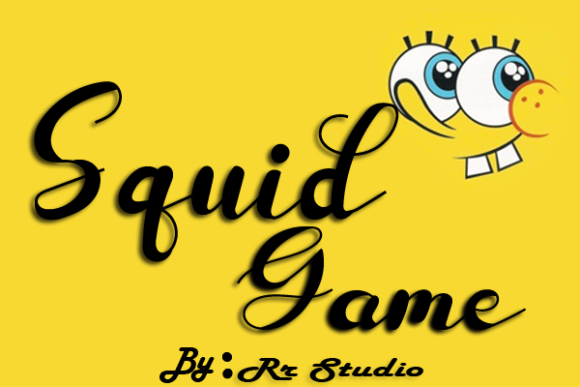
About Squid Game Font
Squid Game is a stylish and incredibly elegant script font. It looks stunning on wedding invitations, thank you cards, quotes, greeting cards, logos, business cards and every other design which needs a handwritten touch.